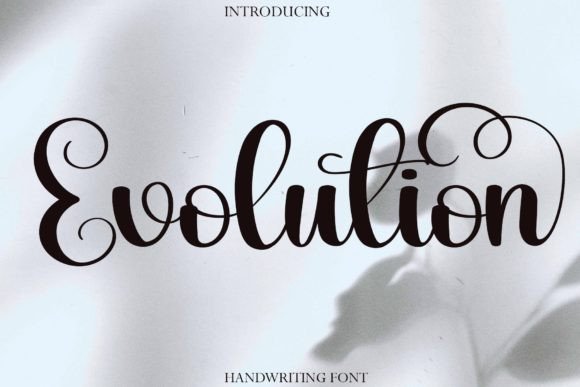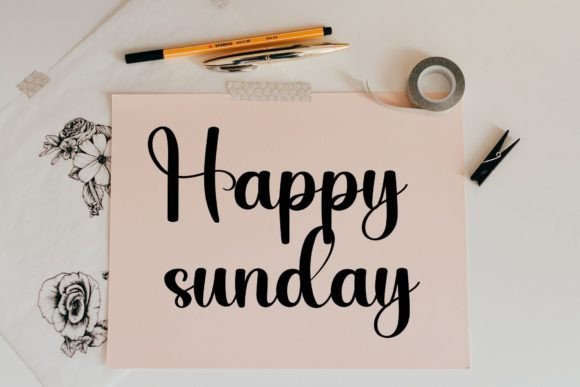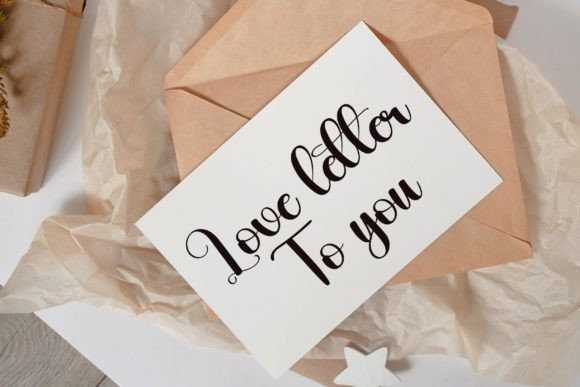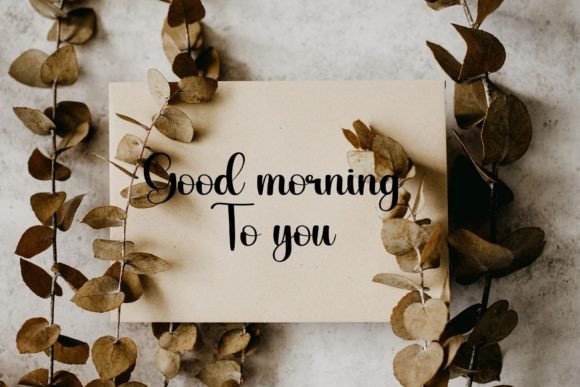
About Evolution Font
Evolution is not just a font; it’s a sweet and thin serif typeface that brings a touch of luxury to your design projects. With characters that dance along the baseline, this font adds a unique and elegant spark to any creative endeavor.
The sweetness of Evolution is evident in its thin serifs, giving it a delicate and refined appearance. This makes the font well-suited for projects that demand a sophisticated and luxurious feel. Whether you’re working on branding, invitations, or editorial design, Evolution enhances the overall aesthetic with its graceful and stylish charm.
The dancing characters along the baseline contribute to the font’s distinctive and dynamic quality. This feature adds a touch of playfulness and movement to the text, making Evolution suitable for a range of applications where a lively and engaging typographic style is desired.
Evolution’s thin serifs make it an excellent choice for projects that require a luxurious touch. From high-end branding to elegant wedding invitations, the font elevates the visual appeal, creating a sense of opulence and exclusivity.
Whether applied to print materials or digital media, Evolution stands out as a font that adds a luxury spark to any design project. Its versatility ensures that it can seamlessly integrate into various contexts, from logos and headlines to packaging and signage.
In summary, Evolution is more than just a font; it’s a sweet and thin serif typeface that exudes luxury and style. With characters that dance along the baseline, this font brings a unique and elegant spark to your design projects, making it a standout choice for those seeking sophistication and refinement in their typography.